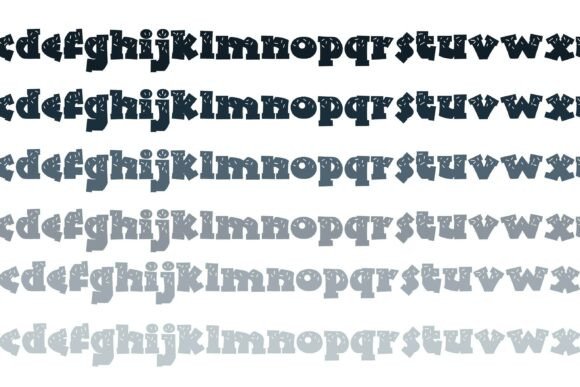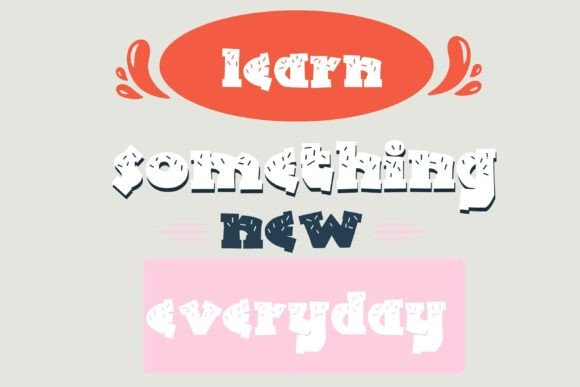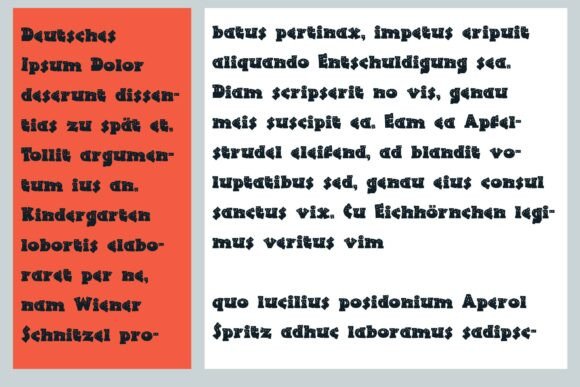
Introducing Funmaker Festive Font: The Ultimate Party Companion for Your Designs
Are you tired of using the same old fonts for your party invitations, holiday posters, and social media headers? Look no further than Funmaker Festive, a high-energy display typeface that’s sure to bring the party to your canvas! With its joyful and exuberant soul, this font is the perfect choice for designers and crafters who want to add a touch of festive fun to their creations.
The Features of Funmaker Festive
So, what makes Funmaker Festive so special? For starters, its thick, chunky block letterforms are decorated with a rhythmic sprinkle of festive confetti patterns that add a playful touch to any design. The font’s hand-cut aesthetic gives it a unique, irregular edge that’s both charming and eye-catching. And with its bold personality, Funmaker Festive is sure to make a statement in any design.
Perfect for Party-Themed Designs
Funmaker Festive is the premier choice for independent birthday invitation branding, holiday celebration posters, bakery menu titles, and high-impact “party-and-cheer” social media headers. Whether you’re designing a festive birthday invitation or a holiday party poster, this font is sure to capture the spirit of the occasion. And with its versatility, you can use it for a wide range of design projects, from DIY crafts to professional branding.
Why Designers and Crafters Love Funmaker Festive
Designers and crafters love Funmaker Festive for its unique blend of playfulness and sophistication. The font’s bold, chunky letterforms make it easy to read, even at large sizes, while its festive confetti patterns add a touch of whimsy and fun. And with its hand-cut aesthetic, Funmaker Festive has a charming, artisanal feel that’s perfect for crafty designs.
How to Use Funmaker Festive in Your Designs
Using Funmaker Festive in your designs is easy! Here are a few tips to get you started:
- Use Funmaker Festive as a headline font to add a pop of personality to your design.
- Pair Funmaker Festive with a simpler font for body text to create a striking contrast.
- Don’t be afraid to get creative and add your own festive touches, such as glitter or confetti effects!
The Benefits of Using Funmaker Festive
So, why should you choose Funmaker Festive for your designs? Here are just a few benefits:
- Instant party atmosphere: Funmaker Festive instantly adds a festive touch to any design, creating a party atmosphere that’s sure to delight.
- Unique and eye-catching: With its bold, chunky letterforms and festive confetti patterns, Funmaker Festive is sure to stand out in any design.
- Versatile: Funmaker Festive can be used for a wide range of design projects, from birthday invitations to holiday posters.
- Easy to read: Despite its bold, playful aesthetic, Funmaker Festive is easy to read, even at large sizes.
In conclusion, Funmaker Festive is the ultimate party companion for designers and crafters. With its joyful and exuberant soul, bold personality, and festive confetti patterns, this font is sure to bring the party to your canvas. Whether you’re designing a birthday invitation, holiday poster, or social media header, Funmaker Festive is the perfect choice. So why wait? Download Funmaker Festive today and start creating your own festive designs!
- High-energy display typeface
- Thick, chunky block letterforms
- Festive confetti patterns
- Hand-cut aesthetic
- Bold personality
- Perfect for party-themed designs